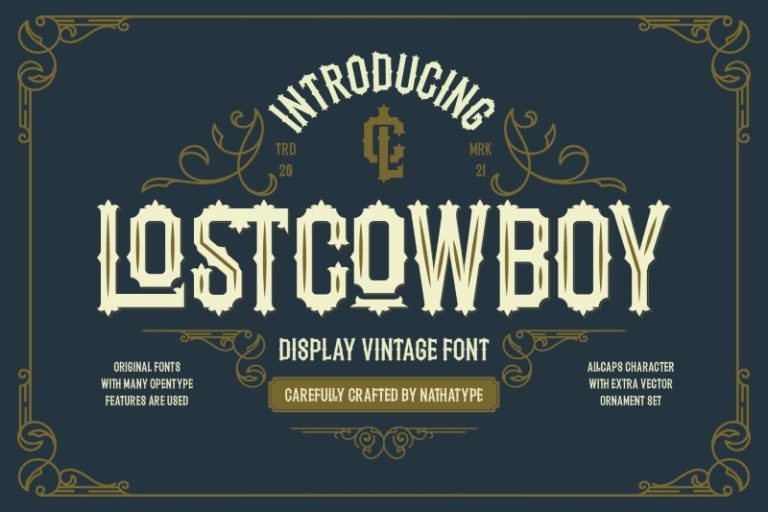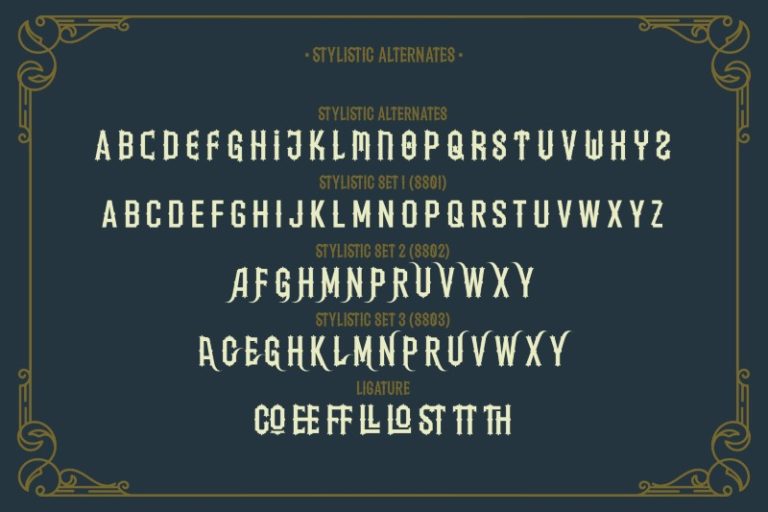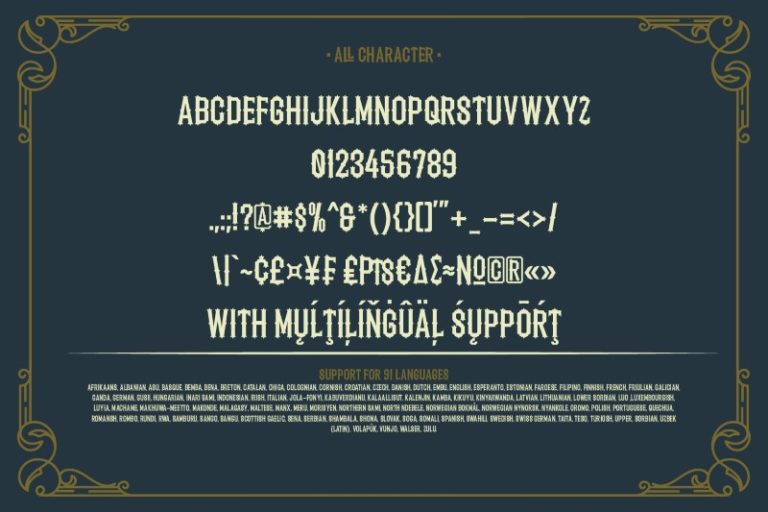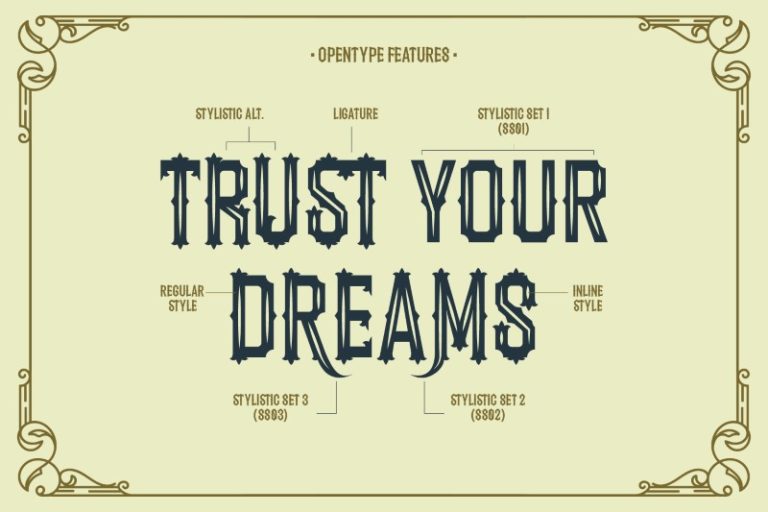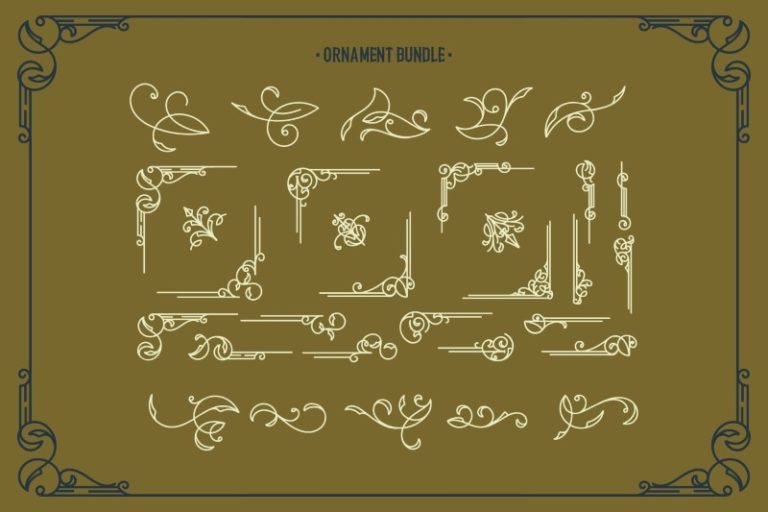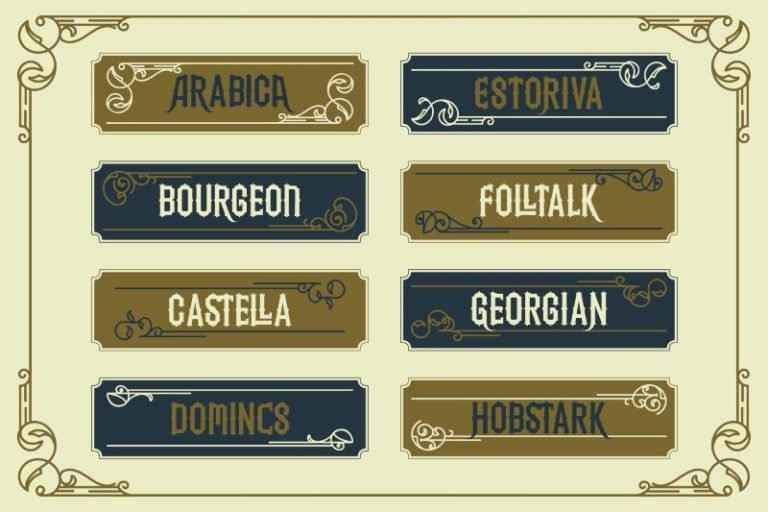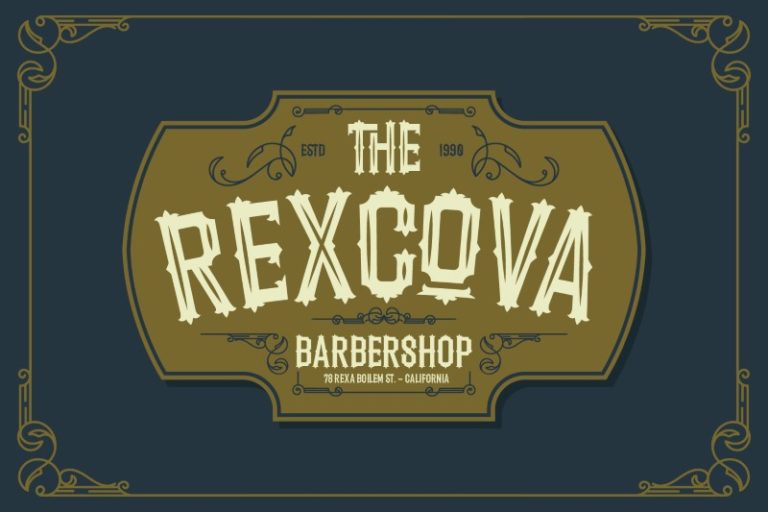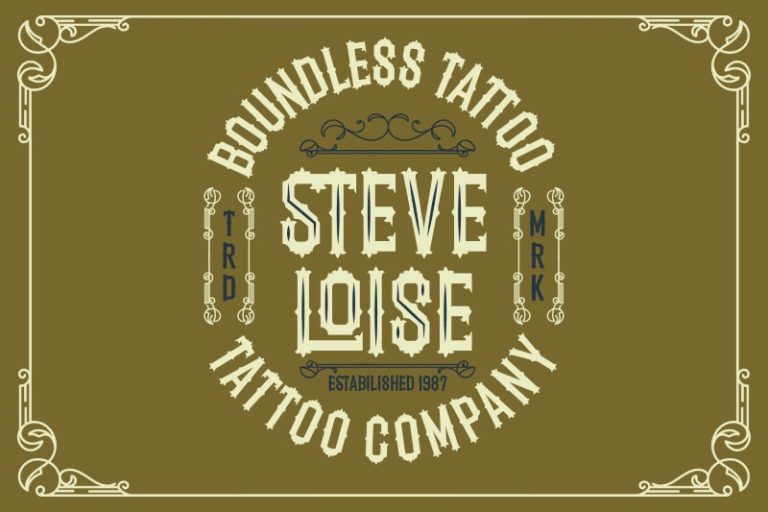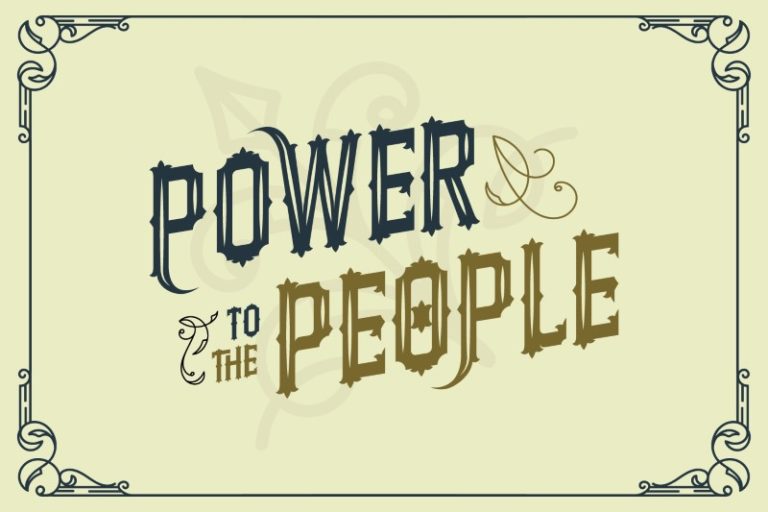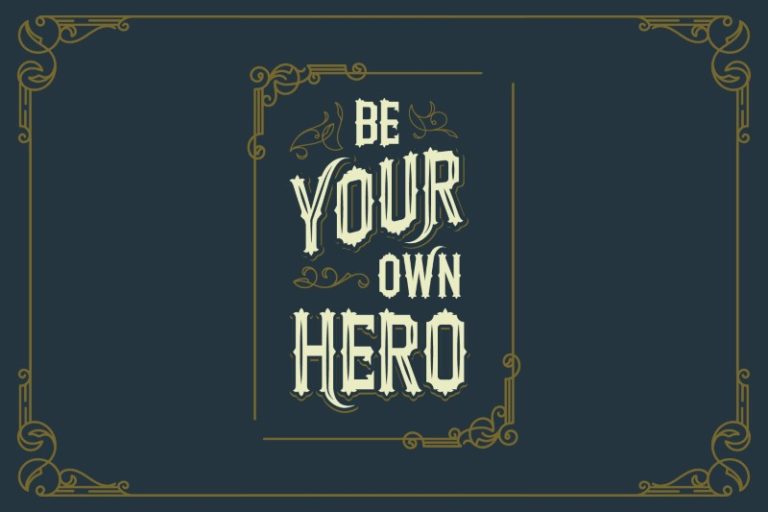
Lostcowboy – Western Vintage Display Font
Lostcowboy
Ready to enhance your branding? Looking for that “something” that’ll make your audience go WOW and clients get on board immediately? Introducing Lostcowboy Vintage Font.
Lostcowboy vintage font is a typeface that is made all characters in uppercase. An excellent choice to add the right amount of retro touch. This typeface with artistic style looks very interesting for loads of different projects and promotions. Suitable for any graphic designs such as logo, book cover, poster, t-shirt, branding, and advertisement needs.
This font is created by Din Studio. It comes with uppercase, ligatures, numerals and punctuation set.
- Ligatures
- Alternates
- Stylistic Set
- Bonus Ornament
- Numerals and Punctuation